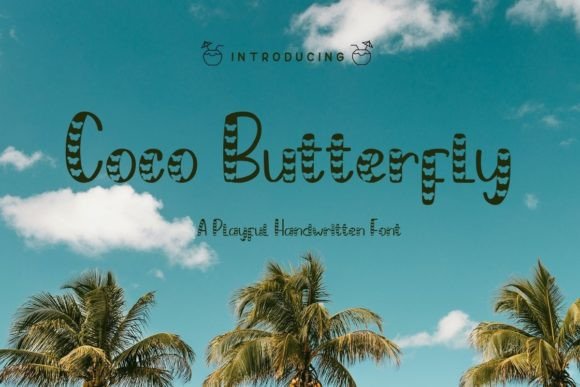
Get ready to add a touch of magic and whimsy to your designs with Coco Butterfly Font, the enchanting display font that will ignite your imagination and captivate your audience.
Every letter in Coco Butterfly Font is a work of art, meticulously crafted to bring a playful and whimsical spirit to your designs. Its unique curves and whimsical flourishes will add a touch of enchantment to any project, making it perfect for kids' birthdays, invitations, greeting cards, and more.
With Coco Butterfly Font, you can unleash your creativity and transport your designs into a world of pure imagination. Its captivating style will capture the hearts of both young and old, making it the perfect choice for any project that needs a dash of magic and wonder.